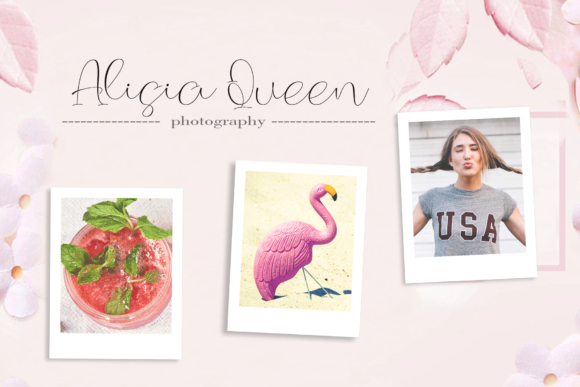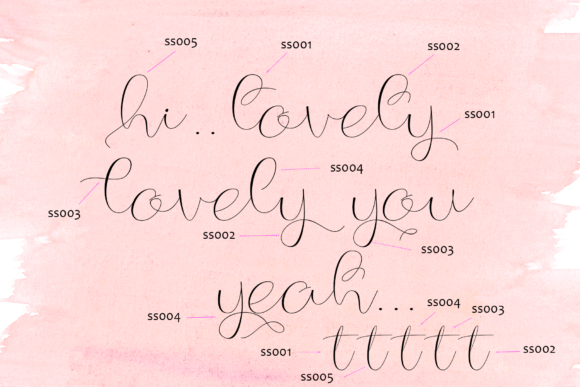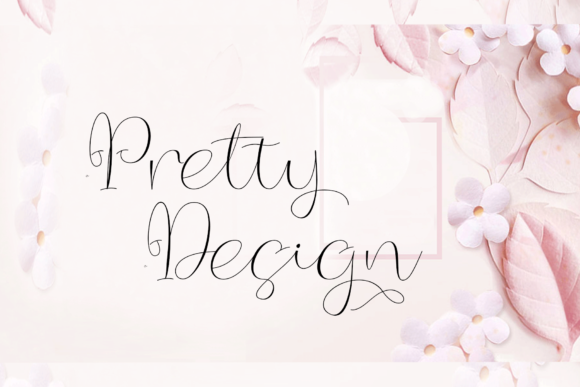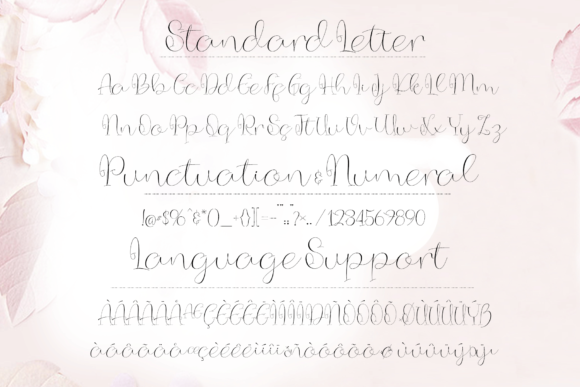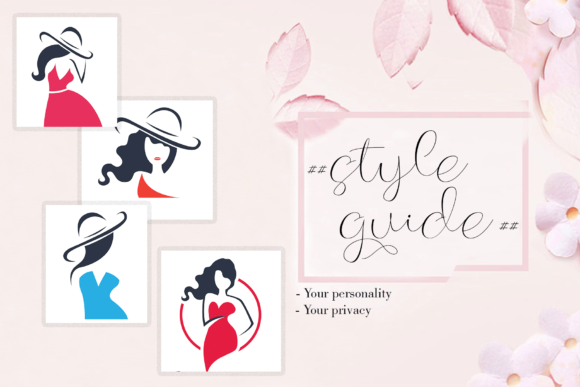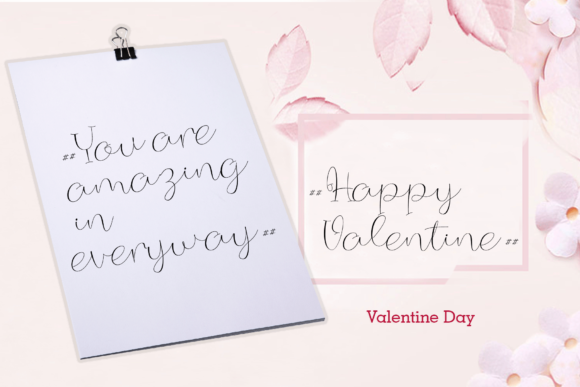
Bettiya Font: The Epitome of Elegance and Sophistication
In the realm of typography, few fonts manage to convey the essence of elegance and sophistication as effortlessly as Bettiya. This exquisite script font is a masterclass in delicate design, boasting a thin and sweet aesthetic that instantly elevates any project it’s a part of. Whether you’re a designer looking for the perfect font to complement your branding or a crafter seeking a stylish addition to your digital or print materials, Bettiya is sure to captivate with its refined charm.
The Distinctive Features of Bettiya
What sets Bettiya apart from other script fonts is its meticulous design, which includes stylish alternates and ligatures. These features allow for a high degree of customization, enabling users to add a personal touch to their text. The inclusion of ligatures and alternates not only enhances the visual appeal of the text but also provides a more dynamic and engaging reading experience. This attention to detail makes Bettiya an exceptional choice for projects where presentation is paramount.
PUA Encoding: Accessibility and Convenience
Another significant advantage of Bettiya is its PUA (Private Use Area) encoding. This means that users can access all the glyphs and swashes with ease, offering unparalleled flexibility and convenience. PUA encoding allows designers to access a wide range of characters and decorative elements directly from their keyboard, streamlining the design process and making it more efficient. This feature is particularly beneficial for those working on projects that require a high level of customization and precision.
Applications of Bettiya
Bettiya’s versatility is one of its most compelling attributes. Its elegant and sophisticated design makes it suitable for a variety of applications, including:
- Branding and Logo Design: Bettiya’s unique and stylish appearance makes it an excellent choice for logos and brand names, helping businesses stand out with a distinctive and memorable visual identity.
- Wedding and Event Invitations: The font’s delicate and sweet aesthetic is perfect for wedding invitations, save-the-date cards, and other event materials, adding a touch of romance and sophistication.
- Packaging Design: For crafters and product designers, Bettiya offers a stylish solution for labeling and packaging, helping products to stand out on shelves and online.
- Digital and Print Media: Whether it’s for a website, blog, magazine, or brochure, Bettiya can enhance the visual appeal of any text, making it more engaging for readers.
Tips for Using Bettiya Effectively
To make the most of Bettiya, consider the following tips:
- Pair with Complementary Fonts: For maximum impact, pair Bettiya with fonts that complement its elegant style. Serif fonts or simple sans-serifs can create a harmonious contrast.
- Adjust Size and Color: Experiment with different sizes and colors to find the perfect combination that suits your project’s theme and enhances readability.
- Utilize Alternates and Ligatures: Don’t hesitate to explore the font’s alternates and ligatures. These elements can add a unique touch to your text, making it more visually appealing.
Bettiya is more than just a font; it’s a design statement. Its blend of elegance, sophistication, and versatility makes it an invaluable asset for designers and crafters alike. With its stylish alternates, ligatures, and PUA encoding, Bettiya offers endless possibilities for creative expression. Whether you’re crafting a brand identity, designing an invitation, or simply looking for a beautiful font to enhance your project, Bettiya is sure to exceed your expectations.